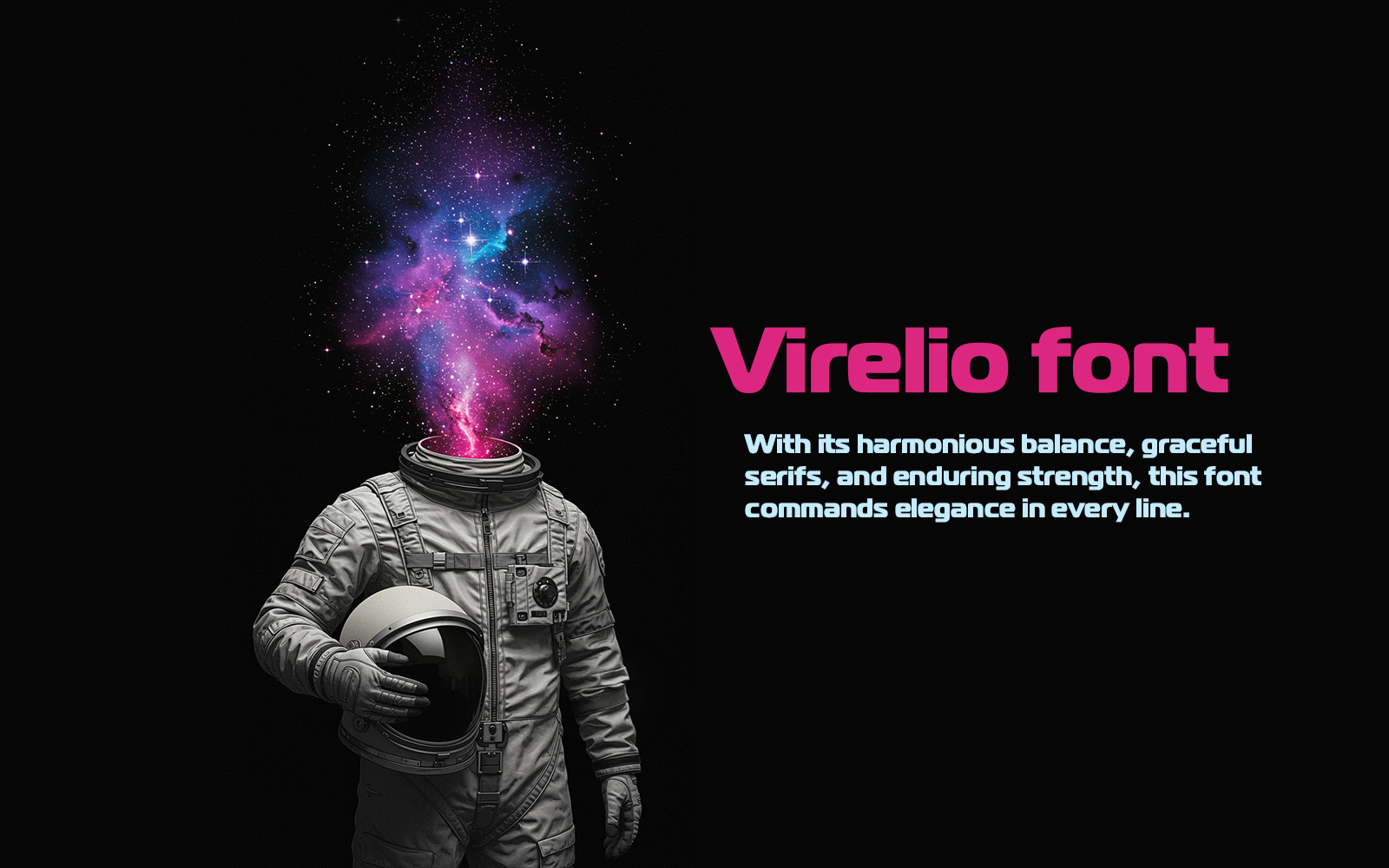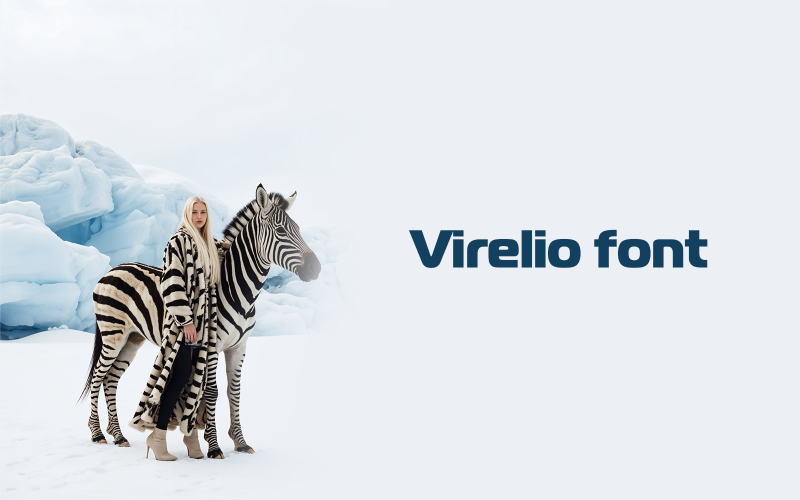
Virelio font-Roman-0112-25 Font
Where Tradition Meets Timeless Design.
Virelio is a tribute to classical typography reimagined for the modern world. With its harmonious balance, graceful serifs, and enduring strength, this font commands elegance in every line.
Whether you're designing a luxury brand, a literary publication, or a high-end product, Virelio brings depth, clarity, and prestige to your message.
Classic never goes out of style—and neither will your design.